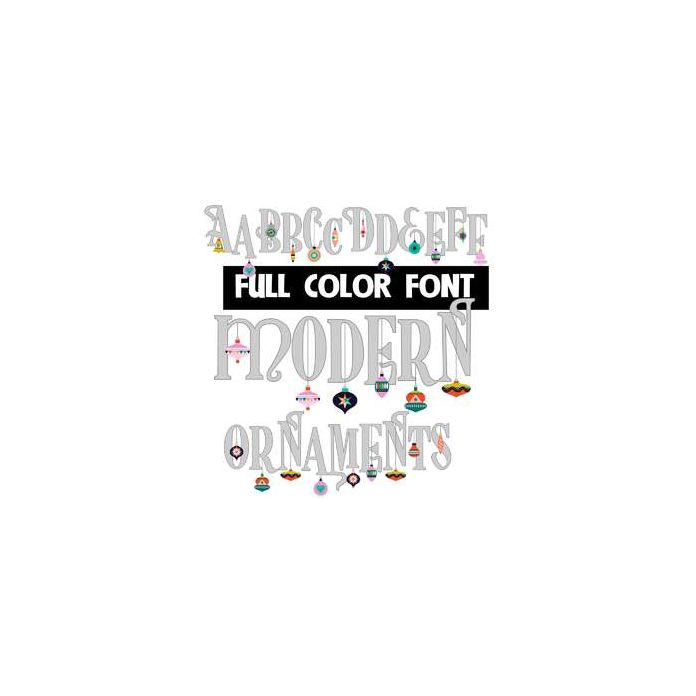
This full-color font features simple gray lettering with a modern-colored ornament hanging from each letter. This font works best for titles, displays, posters and more. Please note color fonts will show as black in non compatible programs. This font type is compatible with Silhouette Studio.